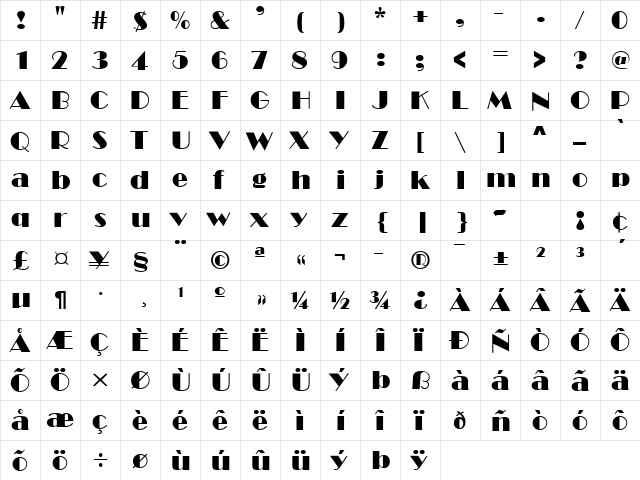
Broad Avenue Normal
Design Context for Broad Avenue Typeface
Broad Avenue is a composed and adaptable typeface that performs quietly and consistently across a wide range of design contexts.